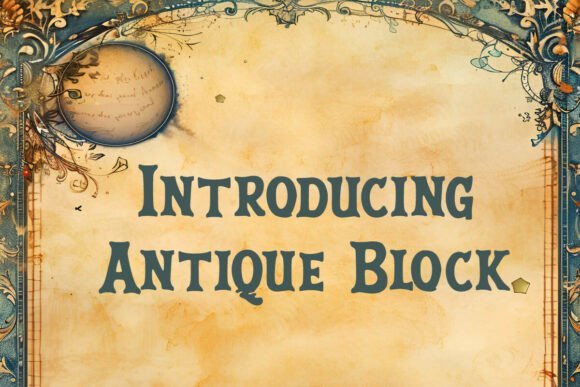
Discover the Timeless Charm of Antique Block Print Font
In the realm of typography, few fonts manage to capture the essence of vintage charm as effectively as the Antique Block Print font. This exquisite font is designed to bring a touch of classic elegance to a wide array of projects, making it an ideal choice for designers and creatives looking to infuse their work with a sense of nostalgia and sophistication. In this article, we’ll delve into the world of Antique Block Print, exploring its versatility, design features, and the multitude of ways it can be used to elevate your designs.
Introducing Antique Block Print – A Font for All Seasons
Antique Block Print is more than just a font – it’s a design statement. With its roots in traditional printing techniques, this font embodies the timeless appeal of vintage typography. Its block print design, characterized by bold, sturdy letters, evokes a sense of nostalgia and authenticity, making it perfect for projects that require a classic touch.
One of the standout features of Antique Block Print is its versatility. This font is not limited to a specific style or medium; rather, it can be seamlessly integrated into a wide range of projects. Whether you’re designing a logo, creating a poster, or crafting a greeting card, Antique Block Print brings a level of sophistication and elegance that is hard to achieve with more modern fonts.
Versatility at Its Finest
The true beauty of Antique Block Print lies in its adaptability. This font can be used across various platforms and projects, making it an invaluable addition to any designer’s toolkit. Here are just a few examples of how you can utilize Antique Block Print:
- Shirt Designs: Add a vintage flair to your apparel designs with Antique Block Print. The font’s bold, blocky letters make for eye-catching t-shirt designs that are sure to stand out.
- Sticker Creations: Create stickers that pop with Antique Block Print. The font’s clear, readable design ensures that your stickers will be easily recognizable, even from a distance.
- Branding Initiatives: Make your brand memorable with Antique Block Print. The font’s distinctive style is sure to capture the attention of your audience, setting your brand apart from the competition.
- Magazine Layouts: Add a touch of classic elegance to your magazine layouts with Antique Block Print. The font’s sophisticated design makes it perfect for headings, titles, and other prominent text elements.
- SVG Files: Antique Block Print can be used to create stunning SVG files, perfect for cutting machines like Cricut. The font’s crisp, clear design ensures that your SVG files will look great, even when scaled up or down.
- Greeting Cards: Create heartfelt greeting cards with Antique Block Print. The font’s vintage charm adds a level of warmth and sincerity to your card designs.
- Cricut Projects: Take your Cricut projects to the next level with Antique Block Print. The font’s bold, blocky design makes for perfect Cricut projects, from signs to decorations.
- Posters: Create eye-catching posters with Antique Block Print. The font’s clear, readable design ensures that your posters will be easily recognizable, even from a distance.
- Social Media Content: Transform your social media content with Antique Block Print. The font’s distinctive style is sure to make your posts stand out in a crowded feed.
The Design Features of Antique Block Print
So, what makes Antique Block Print so special? Here are a few design features that set this font apart:
- Bold, Blocky Letters: The font’s bold, blocky letters are its defining feature. This design gives Antique Block Print its distinctive vintage charm.
- Classic Elegance: Antique Block Print exudes classic elegance, making it perfect for projects that require a sophisticated touch.
- Readability: Despite its bold design, Antique Block Print is remarkably readable, even at smaller sizes.
- Versatility: As mentioned earlier, Antique Block Print is incredibly versatile, making it suitable for a wide range of projects.
Why Choose Antique Block Print?
With so many fonts available, why choose Antique Block Print? Here are a few compelling reasons:
- Unique Design: Antique Block Print boasts a unique design that sets it apart from more modern fonts.
- Timeless Appeal: The font’s vintage charm ensures that it will remain relevant for years to come.
- Ease of Use: Antique Block Print is remarkably easy to use, even for designers who are new to working with fonts.
- Cost-Effective: With its versatility and wide range of uses, Antique Block Print is a cost-effective solution for designers and creatives.
In conclusion, Antique Block Print is a timeless, multi-faceted font that is sure to bring a touch of vintage charm to your designs. With its versatility, classic elegance, and distinctive style, this font is perfect for a wide range of projects, from shirt designs to social media content. Whether you’re a designer, creative, or simply someone who appreciates the beauty of typography, Antique Block Print is an excellent choice.